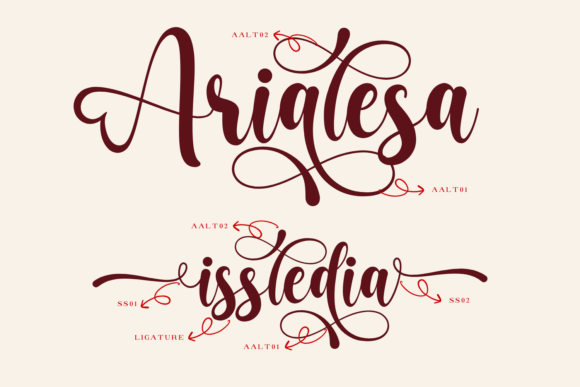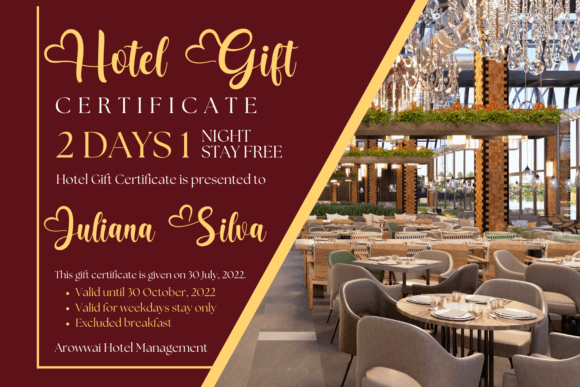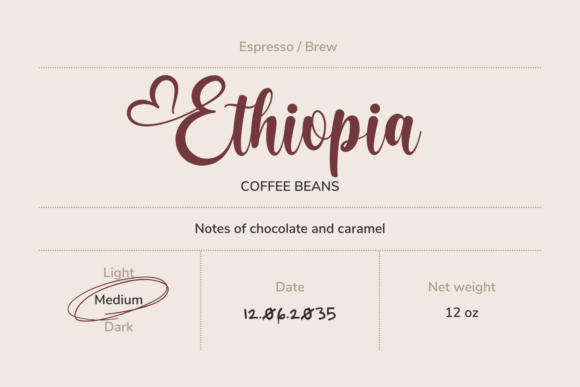
The Hunt for the Perfect Font: Discovering Arialesa
I still remember the frustration of scrolling through font after font, searching for the perfect one to bring my design project to life. As a designer, I’ve had my fair share of late nights and caffeine-fueled sessions, trying to find that one font that captures the essence of a brand or a story. And then, I stumbled upon Arialesa – a handlettering font that has become my go-to for elegant and luxurious designs.
Arialesa: A Font that Exceeds Expectations
Arialesa is a beautifully crafted font, made with a natural and clean style that instantly elevates any design. Its elegant lines and sophisticated feel make it perfect for a wide range of projects, from luxury logos and book or movie titles to fashion brands, magazines, and more.
What I Love About Arialesa ✨
- ✅ PUA encoded: Easy access to all glyphs and swashes, making it a breeze to customize and create unique designs.
- ✅ Elegant and luxurious feel: Perfect for high-end brands, fashion designs, and sophisticated projects.
- ✅ Natural and clean style: A versatile font that works well in various design contexts.
- ✅ High-quality design: Professionally crafted to ensure crisp and clear rendering.
- ⚠️ Learning curve: With so many glyphs and swashes available, it may take some time to get familiar with the font’s features.
- ⚠️ Overuse of swashes: Be mindful of overusing swashes, as it can make the text harder to read.
The Story Behind Arialesa: Designer Inspiration
While the actual story behind Arialesa’s creation might be unknown, it’s easy to imagine that the designer was inspired by the world of luxury and elegance. Perhaps they sought to create a font that would capture the essence of high-end fashion and sophisticated design. Whatever the inspiration, Arialesa has undoubtedly become a stunning addition to the world of typography.
| Q: Is Arialesa suitable for body text or long-form content? | A: While Arialesa is an elegant font, it’s best suited for headlines, titles, and short-form content. For body text or long-form content, a more readable font might be more suitable. |